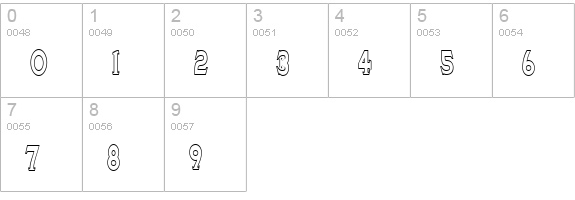
TinplateTitlingNarrow Font Details
TinplateTitlingNarrow font is a sleek and stylish typeface that exudes elegance and sophistication. Its narrow letterforms are meticulously crafted to create a sense of refined precision, making it the perfect choice for any design project that requires a touch of sophistication. The clean lines and sharp edges of TinplateTitlingNarrow font make it ideal for titles, headlines, and logos, where it can instantly grab attention and make a bold statement. Its compact nature allows for maximum impact in limited spaces, ensuring that your message stands out in a crowded digital landscape. This font is not only visually striking but also versatile in its applications. Whether you're designing a corporate presentation, a magazine layout, or a website, TinplateTitlingNarrow font will effortlessly elevate your design to new heights of professionalism and style. And the best part? TinplateTitlingNarrow font is freely available to download at FontsMarket.com. So, you can easily access this incredible font and start using it in your projects without any hassle. With just a few clicks, you can transform your designs and add a touch of class with TinplateTitlingNarrow font. Don't miss out on this opportunity to enhance your design arsenal. Download TinplateTitlingNarrow font today and experience the power of free, high-quality typography at your fingertips.